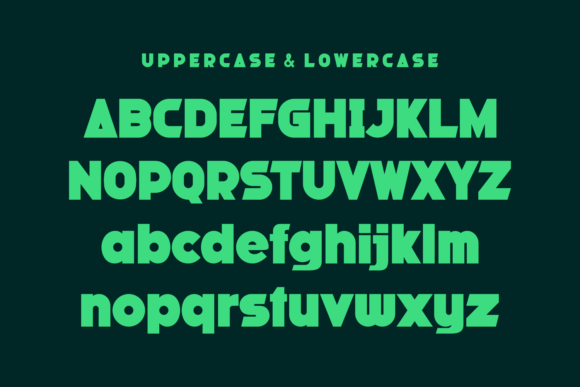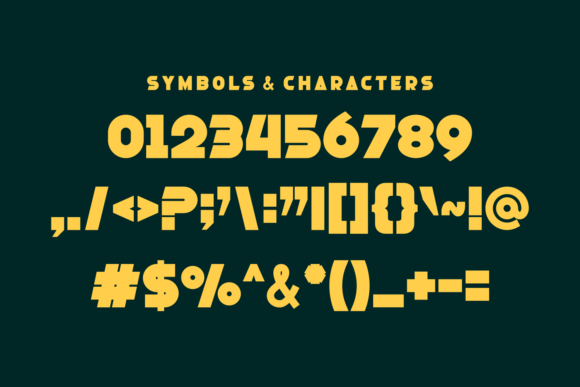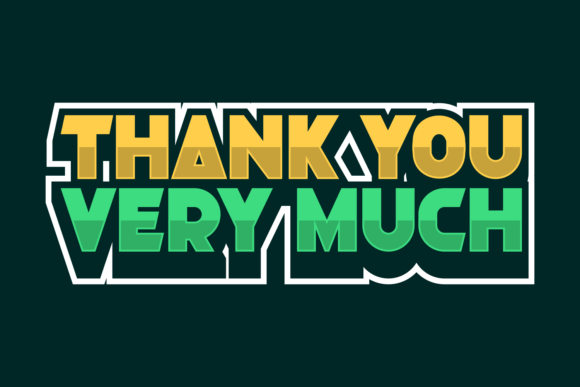
Introduction to Muars Font
As a designer, there’s nothing quite like the thrill of bringing a creative idea to life. You spend hours brainstorming, sketching, and refining your concept, only to find that the perfect font is just out of reach. That’s why we’re excited to introduce you to Muars Font, a game-changing display font that’s about to take your creative projects to the next level.
With its masterful design and versatility, Muars Font is the ultimate design resource for any project. Whether you’re working on a logo, social media campaign, or even a simple blog post, this high-quality font is sure to elevate your design and make it stand out from the crowd. And the best part? Muars Font is available for free download, complete with a transparent background, making it the perfect addition to any design project.
Key Features of Muars Font
- High-quality, unique font design ideal for creative projects requiring a distinctive aesthetic.
- Features a transparent background, allowing for seamless integration into designs with complex backgrounds.
- Designed to be highly legible, with a clear and readable font face suitable for a wide range of applications.
Honest Review: Muars Font
I recently stumbled upon the Muars Font, and I must say it’s been a great addition to my design resources. With a free download available, I was excited to see how it would perform in my next creative project.
One thing that works well is its high-quality design. The Muars Font is crisp, clear, and easy to read. I particularly appreciate the fact that it comes with a transparent background, making it easy to integrate into any design. Whether I’m working on a logo, brochure, or social media graphic, the Muars Font is always a reliable choice.
- ✨ High-quality design that’s crisp and clear
- ✨ Transparent background for easy integration
However, I did encounter some limitations. The Muars Font is a bit limited in its font styles, which can make it less versatile for complex design projects. Additionally, some users may find the font a bit too minimalist for their taste.
Overall, I’m impressed with the Muars Font, and I would definitely recommend it as a design resource for any creative project. While it may have some limitations, its high-quality design and transparent background make it a valuable addition to any designer’s toolkit.
- ⚠️ Limited font styles
- ⚠️ May not be suitable for complex design projects
Muars Font is a high-quality, free download design resource ideal for creative projects that require a unique touch. This versatile font can be used in a variety of applications, from digital graphics to print materials.
Common Use Cases for Muars Font
Muars Font is commonly used in digital graphics, logos, and print materials. Its transparent background feature makes it ideal for creating custom graphics and overlays.